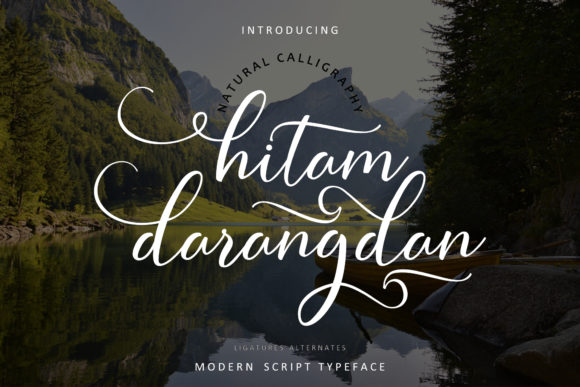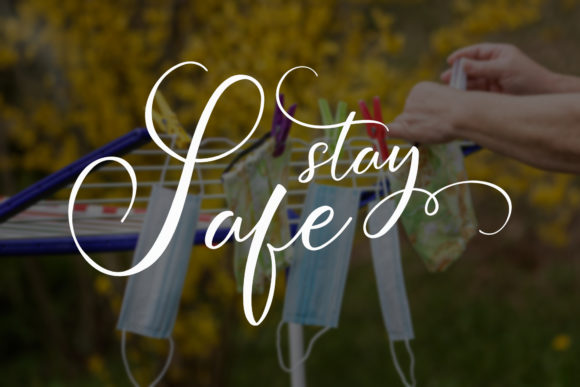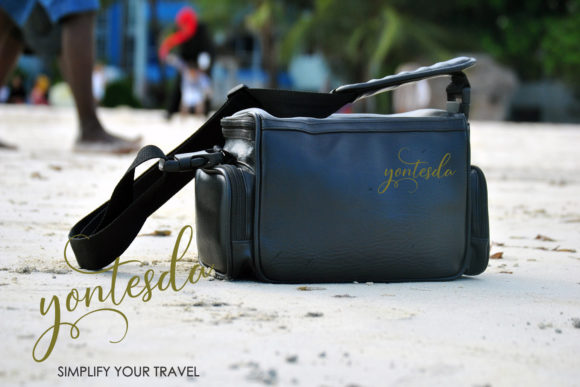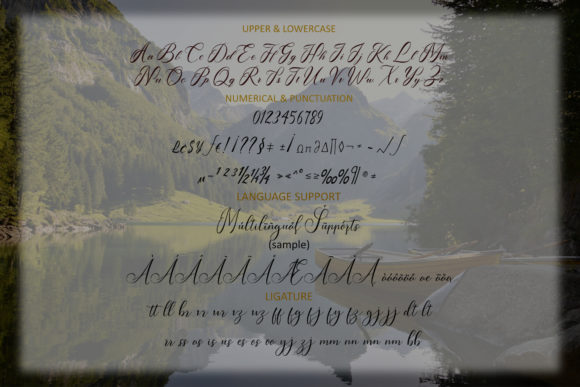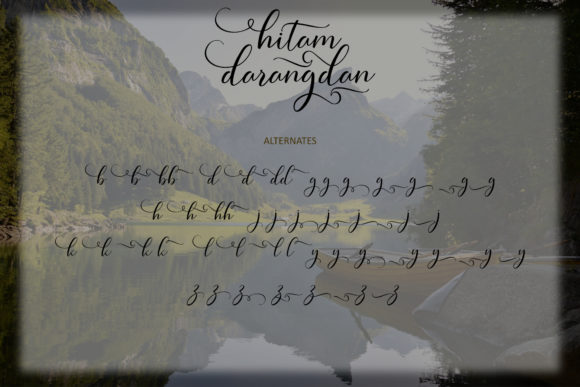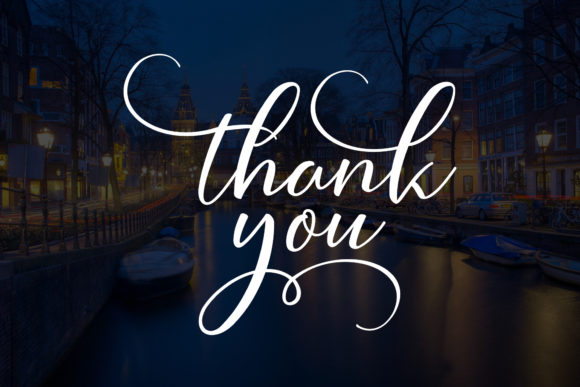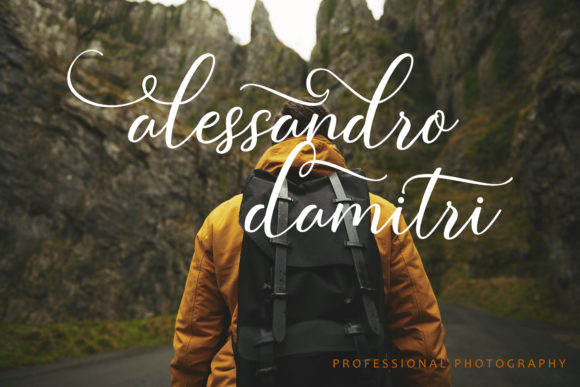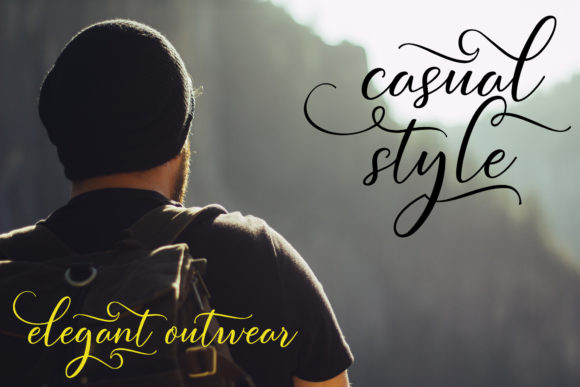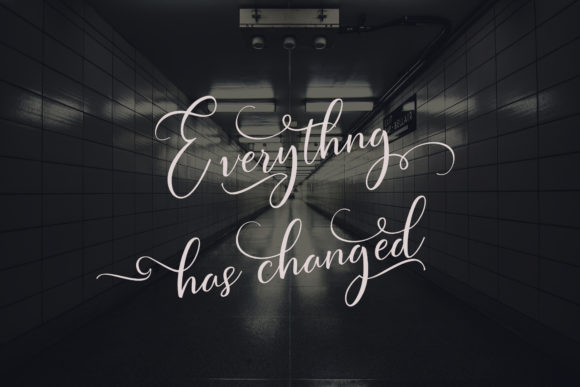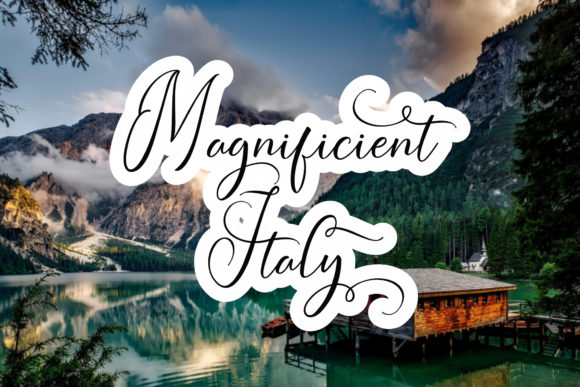
Hitam Darangdan Font
About Hitam Darangdan Font
Hitam Darangdan is a flowing handwritten font, described by an elegant touch, perfect for your favorite projects.